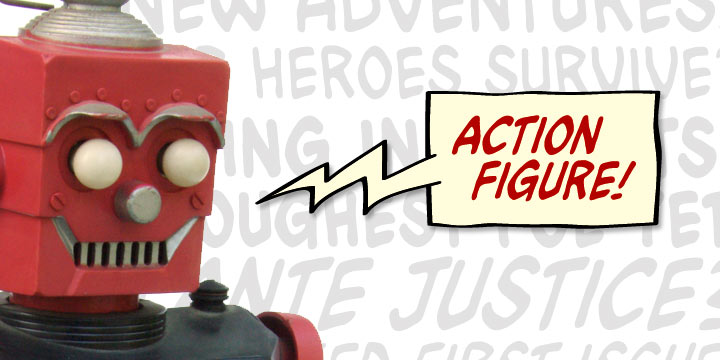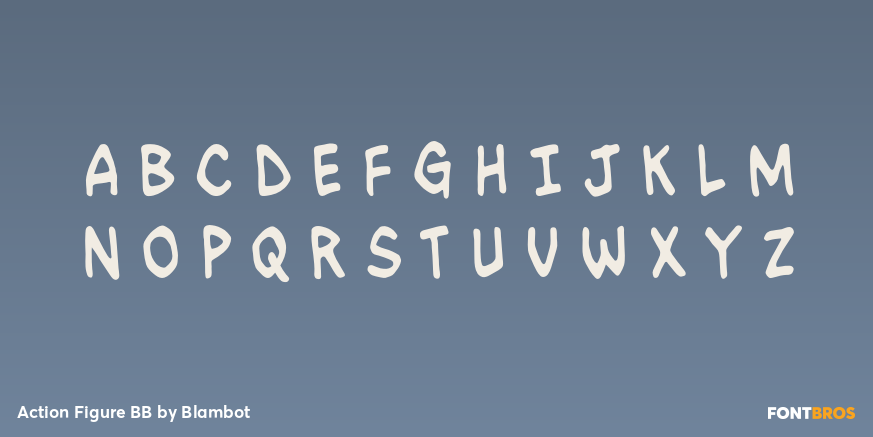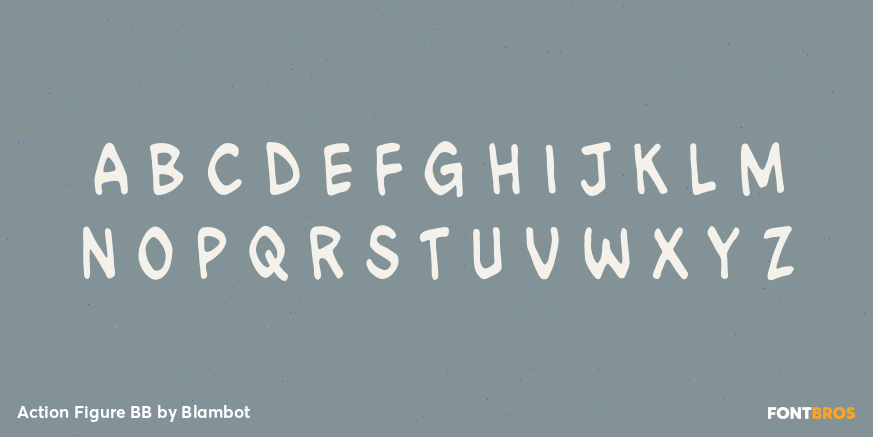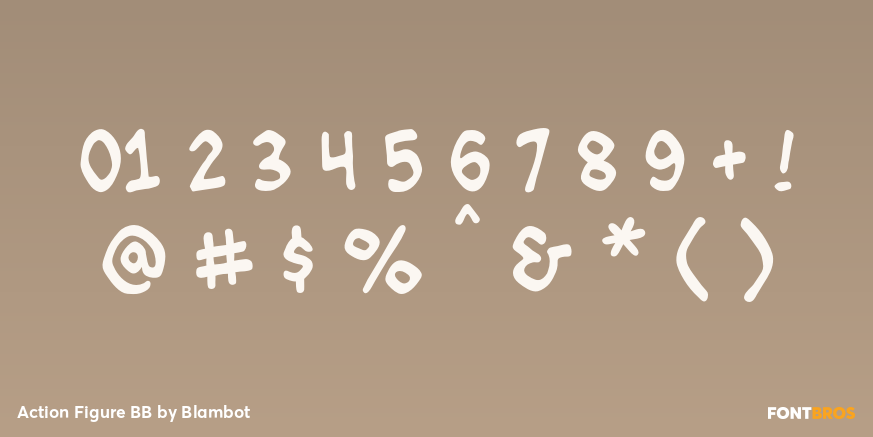
Action Figure BB
Font Family by Blambot
Action Figure BB was hand lettered by Nate Piekos for particularly heavy comic book scripts. When you've got to fit a lot of dialogue in a small amount of space, you need a font that's condensed, but doesn't look like someone just mashed a font to fit the space. Action Figure BB includes Regular, Bold, Italic and BoldItalic.